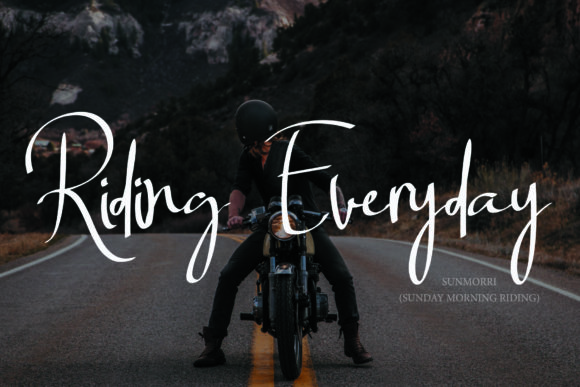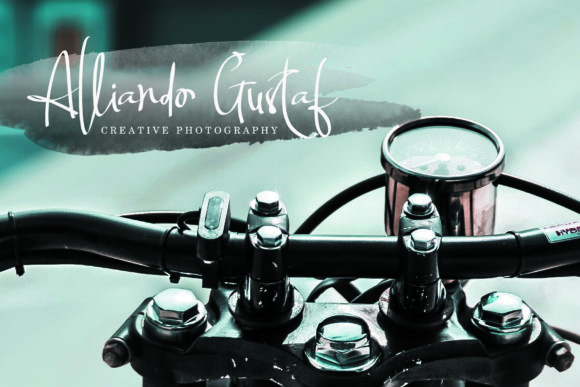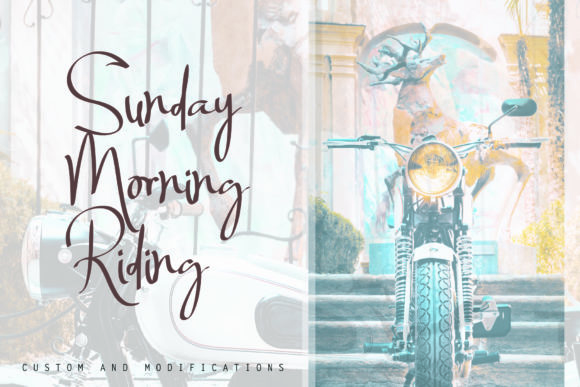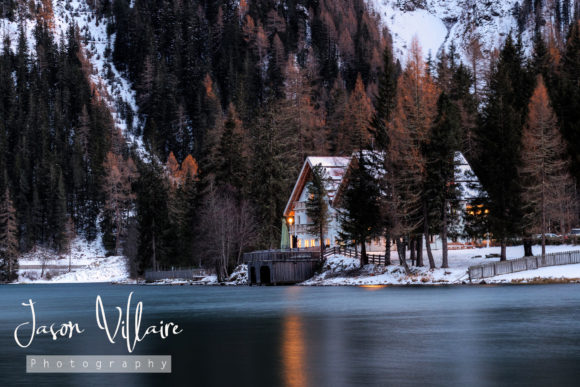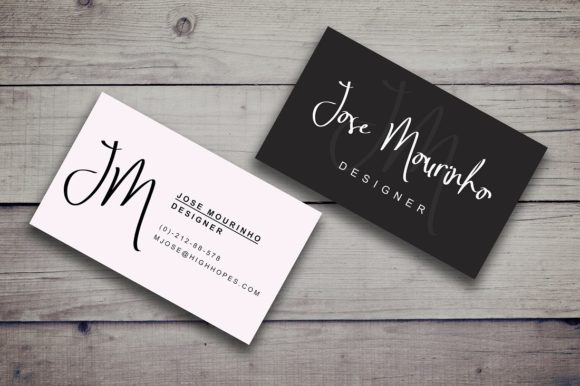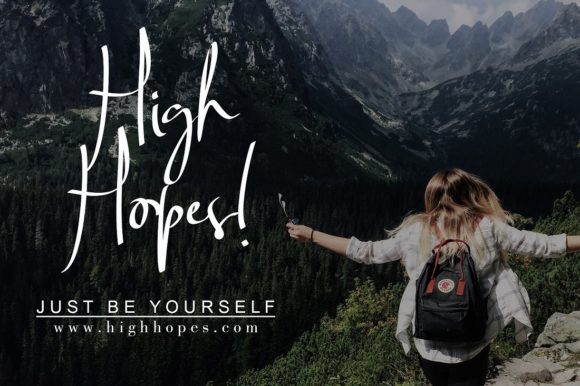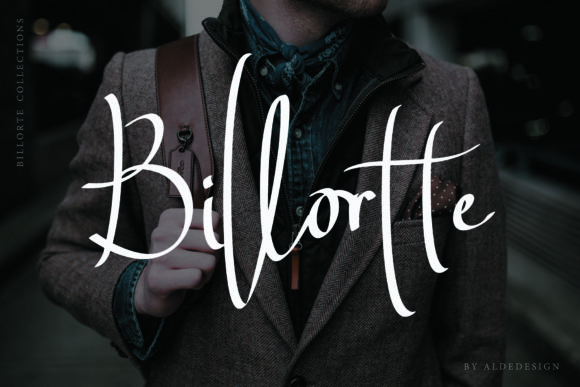
Discover the Elegance of Billortte Font: A Simple yet Classy Script for Designers and Crafters
The world of typography is vast and diverse, offering a plethora of fonts that can make or break the visual appeal of a design project. Among these, the Billortte font stands out for its simplicity, class, and versatility. This elegant script is not just a font; it’s a statement piece for designers and crafters looking to add a touch of sophistication to their work. In this article, we’ll delve into the characteristics of the Billortte font, its uses, and why it has become a go-to choice for many creative professionals.
The Essence of Billortte Font
The Billortte font is a script typeface that exudes a simple and classy taste. It’s designed to be elegant, making it perfect for projects that require a touch of refinement. One of the standout features of the Billortte font is its availability in two elegant variations. This range allows designers to choose the version that best fits their project’s tone and style, ensuring that the final output is always classy, readable, stylish, and easy to use.
Versatility and Readability
Versatility is key in design, and the Billortte font delivers on this front. Its simple yet stylish design makes it suitable for a wide range of projects, from wedding invitations and branding materials to blog headings and digital content. The readability of the Billortte font is one of its strong suits; it communicates the message clearly without overpowering the content. This balance between style and readability is crucial for effective design.
Why Designers and Crafters Love Billortte Font
Designers and crafters love the Billortte font for several reasons:
• Ease of Use: The Billortte font is incredibly easy to use, even for those who are new to design. Its simple integration into various design software makes it accessible for everyone.
• Customization: With two elegant variations, designers have the flexibility to customize their projects to fit their desired aesthetic.
• Timeless Appeal: The classy taste of the Billortte font gives it a timeless appeal. It’s a font that won’t go out of style anytime soon, making it a valuable addition to any designer’s toolkit.
• Versatility: Whether it’s for print or digital use, the Billortte font adapts well to different mediums, ensuring that the design looks great across all platforms.
How to Use Billortte Font Effectively
To make the most of the Billortte font, consider the following tips:
• Pair it with Other Fonts: While the Billortte font is elegant on its own, pairing it with complementary fonts can enhance its beauty. Choose fonts that contrast with its script style for a dynamic look.
• Use it for Headings and Titles: The Billortte font shines when used for headings and titles. Its stylish design draws attention and adds a professional touch to any piece of content.
• Experiment with Colors and Sizes: Don’t be afraid to experiment with different colors and sizes. The Billortte font looks great in various sizes and can be used in both bold and subtle color schemes.
The Billortte font is more than just a typeface; it’s a design statement. Its simple and classy taste, combined with its readability and versatility, makes it an ideal choice for designers and crafters. Whether you’re working on a branding project, crafting beautiful invitations, or creating engaging digital content, the Billortte font can elevate your design to new heights. With its two elegant variations and ease of use, it’s no wonder that the Billortte font has become a favorite among creative professionals. So, if you’re looking to add a touch of elegance and sophistication to your projects, give the Billortte font a try.